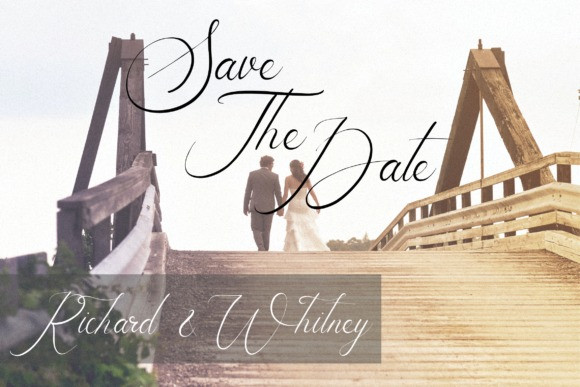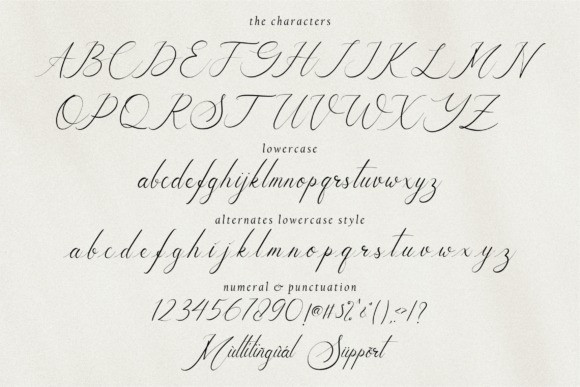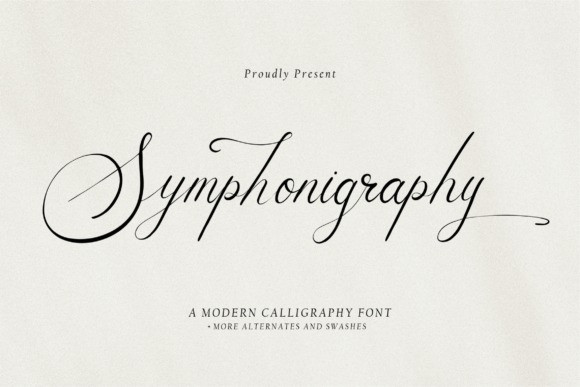
Symphonigraphy Script Font
Symphonigraphy feels equally charming and elegant. It looks stunning on wedding invitations, thank you cards, quotes, greeting cards, logos or business cards. Symphonigraphy is PUA encoded which means you can access all of the glyphs and swashes with ease!